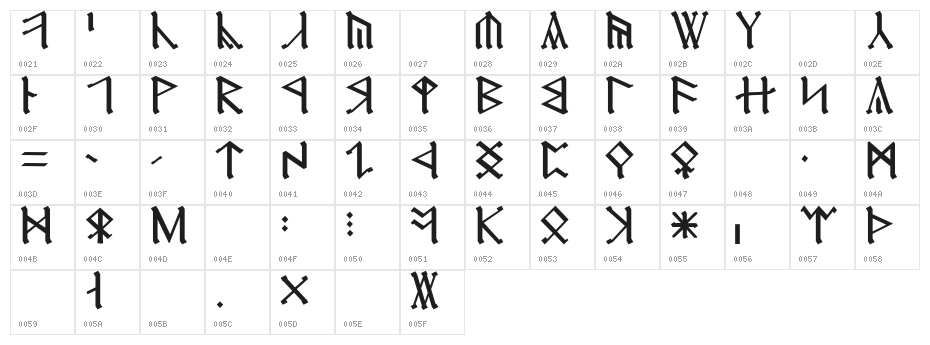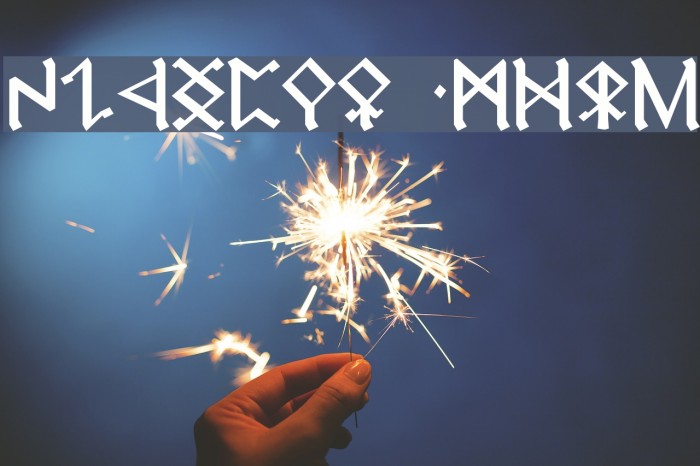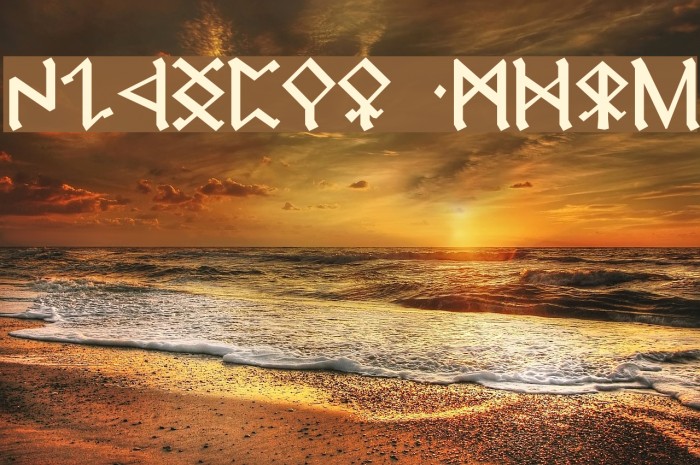
Cirth Erebor Font
Cirth Erebor Description
This font is inspired by the runic alphabets, featuring angular and geometric shapes that evoke a sense of ancient mystery and fantasy. The characters are bold and distinct, with sharp edges and a uniform stroke width that gives them a strong presence. The design is reminiscent of inscriptions found in fantasy literature, making it ideal for projects that require a touch of the mythical or historical. The font's unique style is both decorative and functional, allowing for clear readability while maintaining an aesthetic that is both intriguing and captivating.
| Proposed Projects | Ideal for fantasy-themed projects, game design, book covers, and decorative inscriptions. |